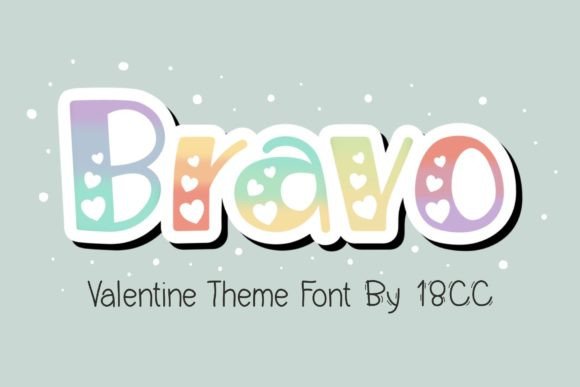
Introducing Bravo Font - the ultimate font for hand lettering enthusiasts! Created by the talented team at 18CC FONTs, this cute Valentine's Day-themed decorative font is here to revolutionize your typography game. Get ready to make a lasting impression with this captivating and versatile font that is bound to leave everyone spellbound.
Bravo Font is your key to adding a touch of magic to your creations. Whether you're designing invitations, greeting cards, DIY gifts, or fabric prints, this font brings a delightful charm that will make your work truly stand out. With its unique style and intricate details, Bravo Font effortlessly captures the essence of romance and elegance.
Fall head over heels for the mesmerizing curves and swooping lines of Bravo Font. Its whimsical design is carefully crafted to evoke emotions and create a sense of enchantment. Each letter is a masterpiece on its own, allowing you to effortlessly create stunning, hand-lettered designs that will leave a lasting impact on your audience.
But Bravo Font is not just a pretty face - it's also highly functional and user-friendly. With its extensive range of characters and glyphs, you have the freedom to explore endless creative possibilities. Let your imagination run wild as you experiment with different letter combinations, ligatures, and swashes to create truly unique and personalized designs.
Unlock a world of creative potential with Bravo Font - the font for hand lettering enthusiasts who crave that extra touch of elegance and romance. Elevate your designs to new heights and captivate your audience with the beauty of this font. Don't miss out on the opportunity to add a dash of magic to your creations.